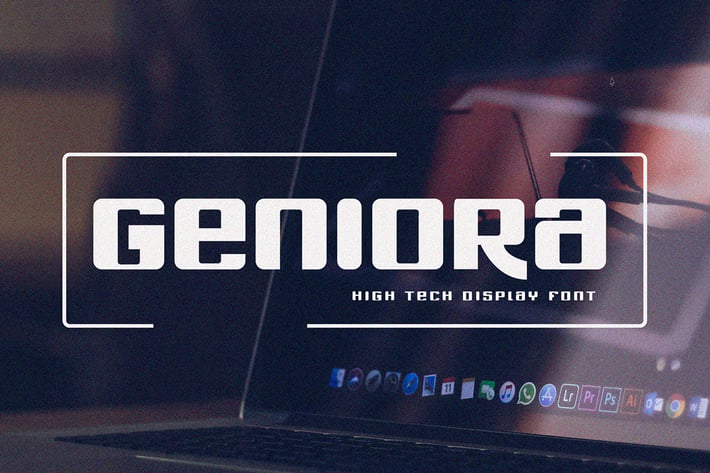
Geniora - Display Font
Introducing Geniora, a simple modern font.
So perfect for you who needs a typeface for logo designs, magazine, social media, brochure, and many more.